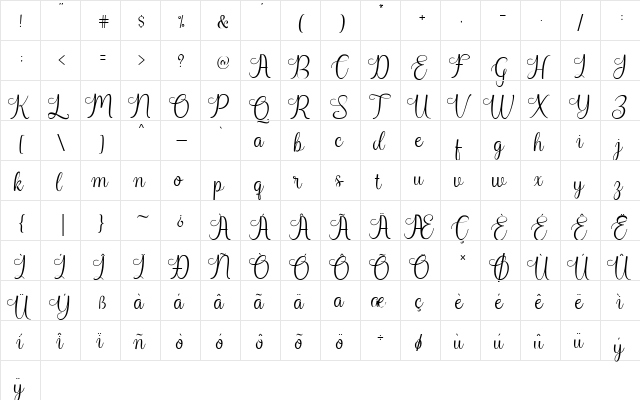
Harland Script Demo Regular
Design Context for Harland Script Demo Typeface
Harland Script Demo flows with the natural rhythm of handwritten lettering, making it ideal for designs that call for warmth and personal expression.
Font Pairing: Combine Harland Script Demo with a simple geometric sans for maximum contrast — the tension between flowing curves and clean structure is a classic typographic pairing.
Pro Tip: Use Harland Script Demo for short runs of text — names, titles, or taglines. Extended body copy in script faces tires the eye quickly.